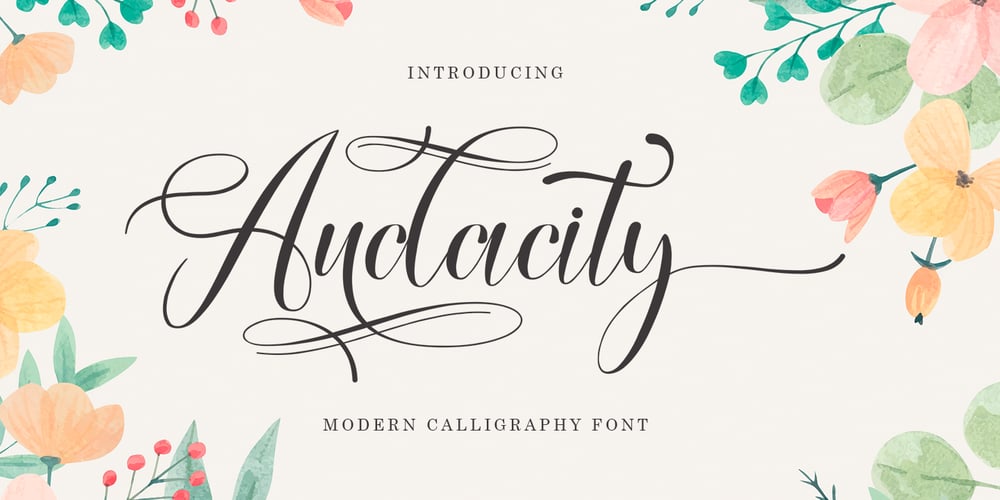
Audacity Script Font Family was designed by Reza Haitami and published by Black Studio. Audacity Script contains 1 styles and family package options. Audacity Script is a new modern script font with an irregular baseline. With its trendy and feminine style, Audacity Script looks beautiful on wedding invitations, thank you cards, quotes, greeting cards, logos, business cards and more. Includes start and end letters, alternatives and support for many languages.To activate the OpenType Stylistic alternative, you need a program that supports OpenType features such as Adobe Illustrator CS, Adobe Indesign & CorelDraw X6-X7, Microsoft Word 2010 or a later version. There is an additional way to access alternatives / swashes, using the Character Map (Windows), Nexus Fonts (Windows), Font Books (Mac) or a software program such as PopChar (for Windows and Mac).How do I access all alternative characters: https: //www.youtube.com/watch? v = Go9vacoYmBwhttps: //www.youtube.com/watch? v = XzwjMkbB-wQhttps: //www.yoNeed help or have questions, let me know. I’m happy to help.